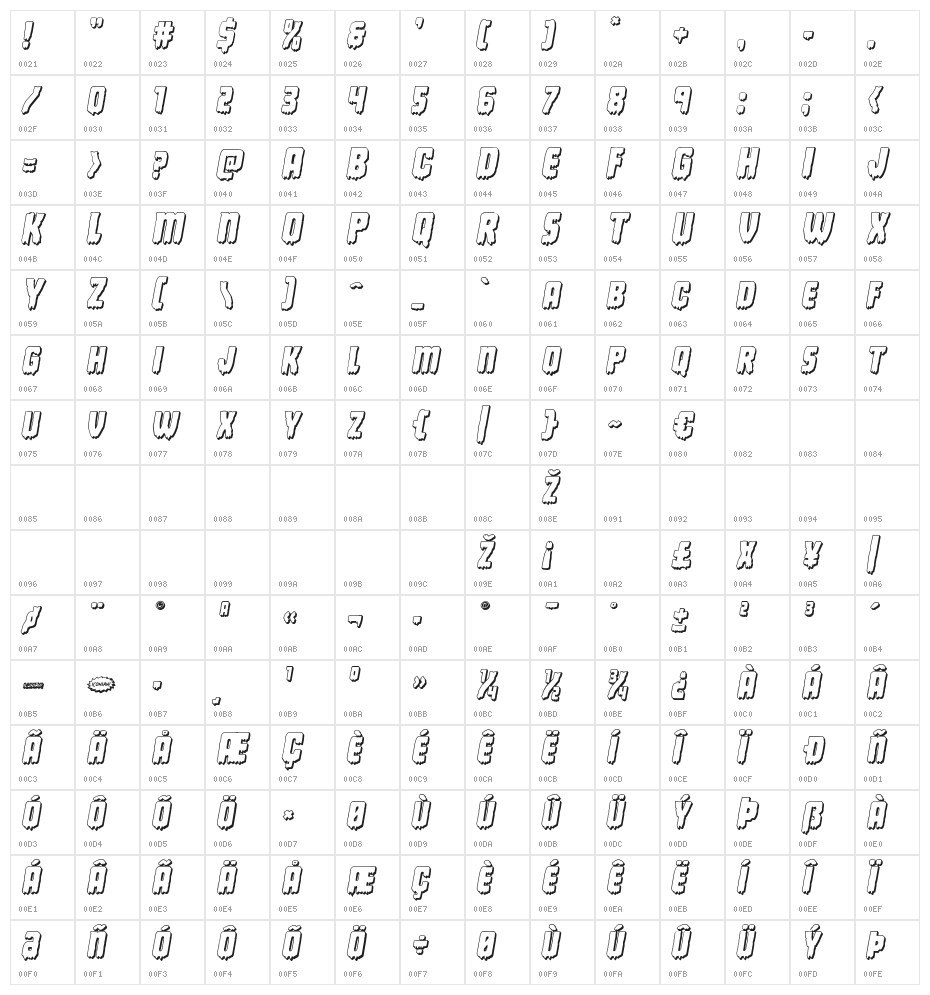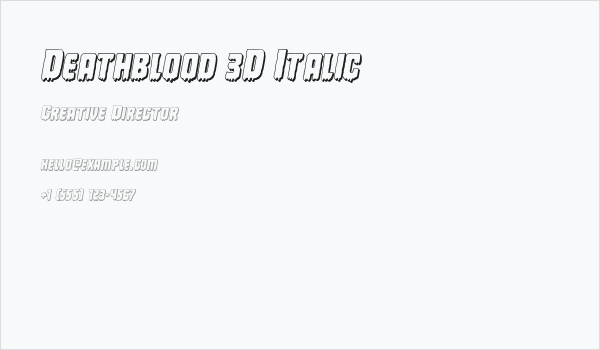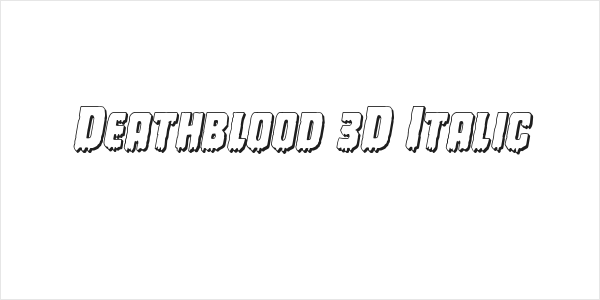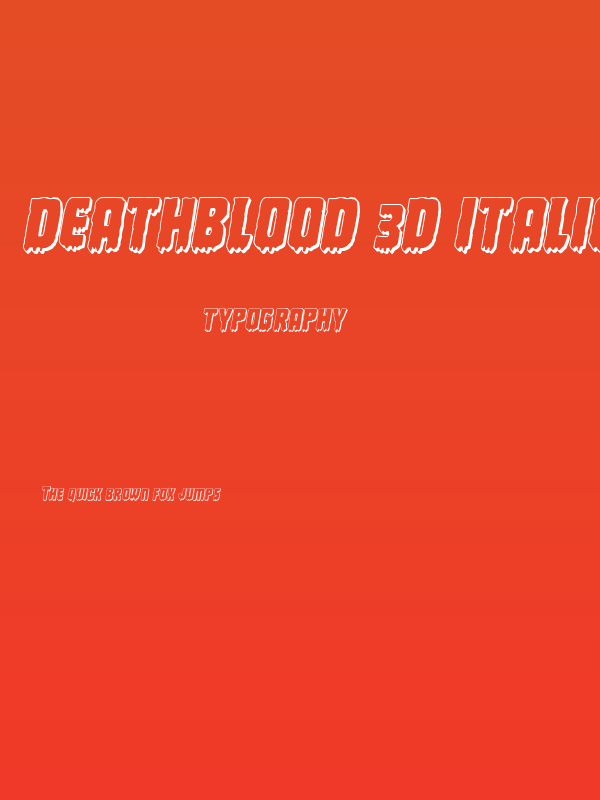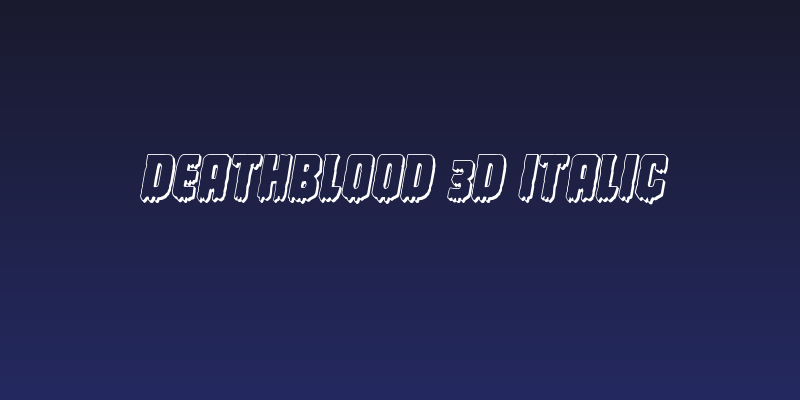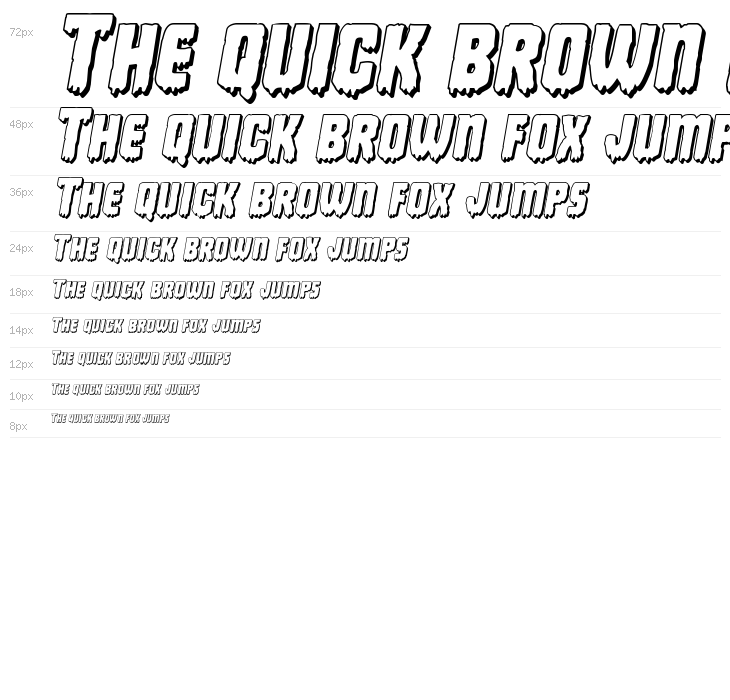
Deathblood 3D Italic Font
Deathblood 3D Italic Description
This font features a bold, three-dimensional style with a dripping effect that gives it a unique, edgy appearance. The letters are uppercase and lowercase, with numbers and special characters included. The design is reminiscent of horror or Halloween themes, making it ideal for projects that require a spooky or dramatic flair. The italicized slant adds a dynamic feel, enhancing its visual impact. The thick strokes and shadowing create a sense of depth, while the irregular edges contribute to its distinctive, eye-catching look.
Proposed ProjectsIdeal for Halloween posters, horror movie titles, spooky event invitations, and themed merchandise.